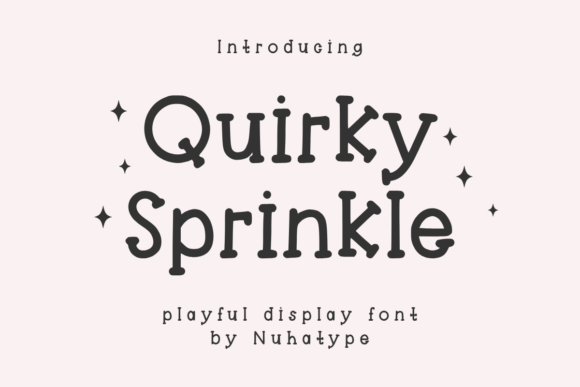
Quirky Sprinkle Font: Minimalist Handwriting for Web Design
Quirky Sprinkle is a display typeface that brings the unpolished elegance of natural handwriting into the structured world of digital design. Its thin, airy letterforms feel personal without crossing into overly casual territory, making it a versatile choice for web designers who need to inject warmth into a brand identity without sacrificing clarity. The font’s character set leans into simplicity, avoiding exaggerated swashes or distracting flourishes that often make handwritten fonts difficult to use in live layouts.
What sets Quirky Sprinkle apart from typical script fonts is its restraint. The strokes are deliberately fine, almost like pencil marks on paper, which translates into a lightweight presence on screen. This matters when you’re layering text over images, placing it on dark backgrounds, or using it at smaller sizes in responsive grids. The typeface feels modern, quiet, and considered—a design asset that supports a brand rather than shouting over it.
The Visual Personality of a Thin Display Font
Thin display fonts often struggle with legibility on screens, but Quirky Sprinkle balances delicacy with enough character recognition to hold its own in short bursts. The letterforms have a slightly irregular baseline and organic curves that mimic real writing, creating an approachable, human tone. This personality makes it especially effective for brands that want to feel relatable, creative, or handcrafted without tipping into messy DIY territory.
The font’s minimalist skeleton means it works well in layouts that already have a clean structure. Think of a sans serif body font carrying the informational weight, with Quirky Sprinkle used as a headline or accent that softens the overall aesthetic. The contrast between the mechanical precision of a geometric sans and the hand-drawn quality of this display font creates a visual rhythm that draws the eye naturally through a page.
Where Quirky Sprinkle Excels in Web Layouts
This is not a workhorse typeface for paragraphs or long-form reading. Its strength lies in moments of emphasis—the places where you pause scrolling and notice a phrase. Hero section titles, section headers, and curated call-to-action text all benefit from a font that feels intentional rather than generic. When designing landing pages for creative entrepreneurs, coaching services, or boutique product lines, Quirky Sprinkle can shift the entire tone from corporate to conversational in a single line.
Hero Sections and Main Headlines
A hero section is often the first and only chance to communicate personality. Quirky Sprinkle used in an h1 tag, especially when paired with ample whitespace, signals that a brand values authenticity. The thin strokes read best at larger sizes—think 48px and above on desktop—where the delicate details remain crisp. On mobile screens, you’ll want to bump the size up proportionally to maintain the same airy feel without the letters disappearing into the background.
Call-to-Action and Micro-Interactions
Buttons and short CTAs can benefit from a handwritten touch when the goal is to lower the psychological barrier to clicking. A phrase like “Let’s work together” or “Download your free guide” set in Quirky Sprinkle feels less transactional and more like a personal invitation. However, test this carefully on smaller breakpoints. Below 18px, the thin strokes may lose definition on lower-resolution screens, so reserve it for larger button text or use it in combination with a bolder font weight for the supporting label.
Online Shop and Product Banners
E-commerce designers often search for display fonts that add boutique charm without compromising product photography. Quirky Sprinkle works especially well for category banners, seasonal promotion headers, and “About the maker” blocks. Its handwritten quality aligns with artisanal, sustainable, or handmade goods. When placing the font over lifestyle images, consider adding a subtle text shadow or semi-transparent overlay to ensure the thin strokes don’t get lost in busy photo backgrounds.
Reading Patterns, Visual Hierarchy, and Trust
Web users scan in predictable F-patterns and Z-patterns. Display fonts placed in the top-third of the page carry the heaviest burden of establishing visual hierarchy. When Quirky Sprinkle appears as a header above a clean sans serif body, it creates an immediate separation between emotional content and functional content. The brain registers the handwritten style as personal, then settles into the familiar sans serif for reading. This layered approach can increase time-on-page simply because the design feels less monotonous.
Brand trust often ties back to perceived effort. A site that uses thoughtful typography signals that someone cared enough to choose a font instead of defaulting to system fonts. Quirky Sprinkle’s refined hand-drawn quality suggests a brand that pays attention to detail. In industries like coaching, wellness, or creative services, that perception can directly influence conversion rates on inquiry forms and booking pages.
Ultimately, Quirky Sprinkle solves a specific design problem: how to add handmade warmth to a digital interface without losing the polish that makes a brand feel professional. Its narrow focus on short, high-impact text makes it a dependable part of a larger typographic toolkit, ready to soften headlines, personalize buttons, and bring a quiet sense of care to the spaces where attention lingers most.